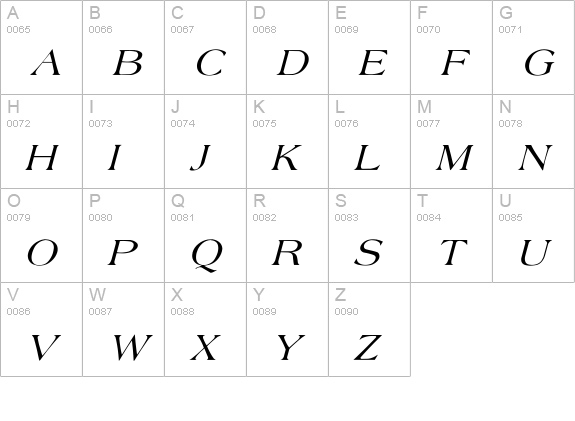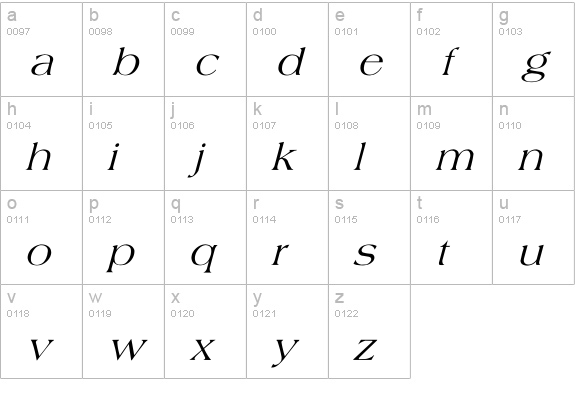
Agate Italic is a distinctive, italic variant in the Agate typeface family \xE2\x80\x94 well suited to design and typography projects.
Agate Italic font is a beautiful and elegant typeface that exudes sophistication and charm. Its flowing italic design adds a touch of class to any project, making it perfect for use in invitations, advertisements, and branding materials. The slender and graceful letterforms of Agate Italic font create a sense of refinement and style, making it a versatile choice for both print and digital media. What sets Agate Italic font apart is not just its aesthetic appeal, but also the fact that it is available for free download at FontsMarket.com. This means that you can access this stunning font without any cost, allowing you to enhance your designs with a touch of luxury without breaking the bank. Whether you are a professional designer or a hobbyist looking to elevate your projects, Agate Italic font is a fantastic choice that combines beauty with accessibility. Download it today and add a touch of elegance to your creations!